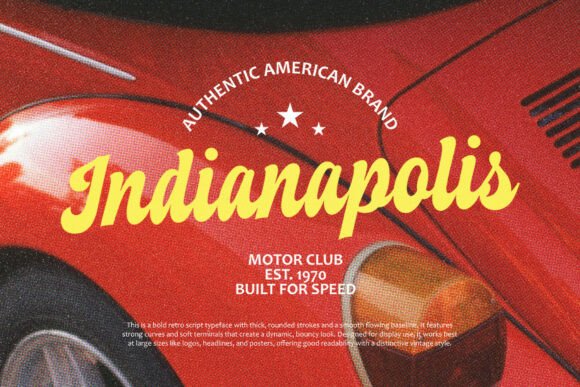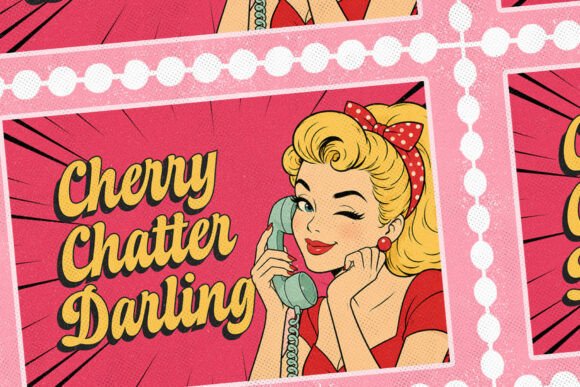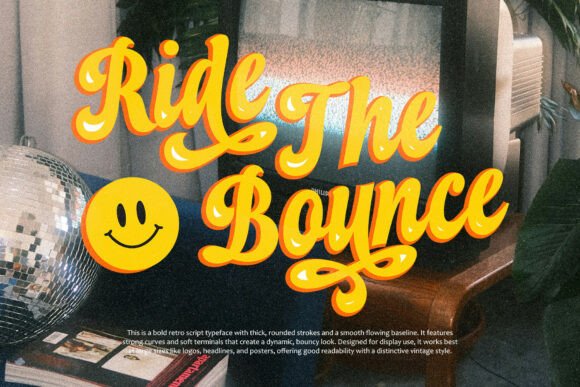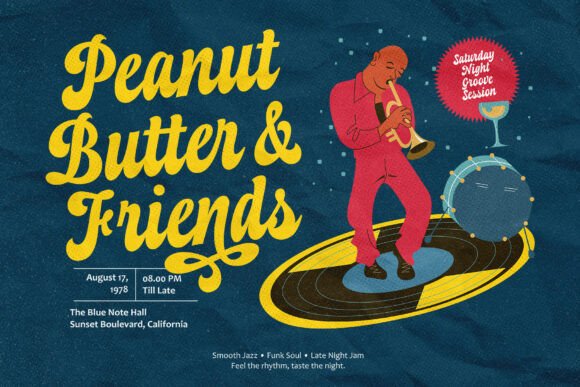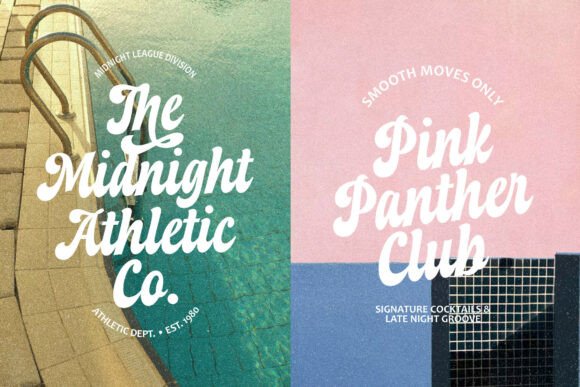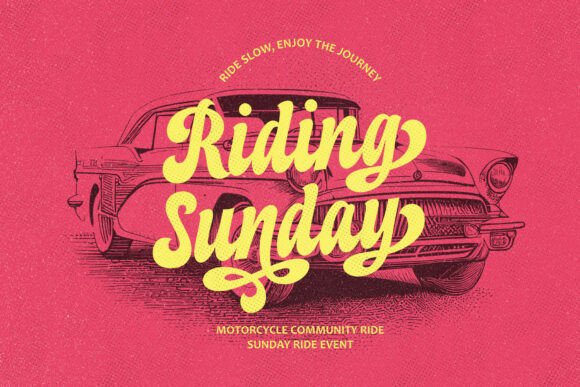
Duckin Font: The Ultimate Retro-Style Script for Bold Designs
Are you looking for a font that can add a touch of nostalgia and playfulness to your designs? Look no further than Duckin Font, a retro-style script font that’s perfect for creating bold and eye-catching designs. With its unique blend of classic vintage aesthetics and a fun, groovy touch, Duckin Font is ideal for designers and crafters who want to add some personality to their work.
What is Duckin Font?
Duckin Font is a script font that features bold characters, dynamic flow, and playful letterforms. Its smooth curves, flowing baseline, and bouncy rhythm make it perfect for designs that require a strong personality and visual impact. Whether you’re creating logos, posters, product packaging, branding, merchandise, headlines, or social media content, Duckin Font is the perfect choice.
Key Features of Duckin Font
- Retro-style script font: Duckin Font combines classic vintage aesthetics with a fun, groovy touch, making it perfect for designs that aim to stand out.
- Bold characters: The font features bold characters that are perfect for creating eye-catching designs.
- Dynamic flow: The font’s dynamic flow and smooth curves make it perfect for creating designs that require a sense of movement and energy.
- Playful letterforms: The font’s playful letterforms add a touch of whimsy and fun to any design.
- Highly readable: Despite its bold and playful style, Duckin Font remains highly readable, making it perfect for both digital and print designs.
Uses of Duckin Font
Duckin Font is a versatile font that can be used for a wide range of design projects, including:
- Logos: The font’s bold and playful style makes it perfect for creating logos that require a strong personality.
- Posters: Duckin Font is ideal for creating eye-catching posters that require a bold and attention-grabbing headline.
- Product packaging: The font’s retro-style aesthetic makes it perfect for product packaging that requires a vintage or nostalgic feel.
- Branding: Duckin Font can be used to create a consistent brand identity that requires a bold and playful style.
- Merchandise: The font’s fun and playful style makes it perfect for creating merchandise such as t-shirts, mugs, and tote bags.
- Headlines: Duckin Font is ideal for creating bold and attention-grabbing headlines for articles, blog posts, and social media content.
- Social media content: The font’s playful style makes it perfect for creating engaging and eye-catching social media content.
Why Choose Duckin Font?
There are many reasons why you should choose Duckin Font for your design projects. Here are a few:
- Unique style: Duckin Font has a unique and distinctive style that’s perfect for designers who want to stand out from the crowd.
- High-quality design: The font is designed to high-quality standards, ensuring that it’s clear and readable even at small sizes.
- Versatile: The font can be used for a wide range of design projects, from logos and posters to product packaging and social media content.
| Font Name | Duckin Font |
| Author | Fourlines.design |
Duckin Font is a retro-style script font that’s perfect for designers and crafters who want to add a touch of nostalgia and playfulness to their designs. With its bold characters, dynamic flow, and playful letterforms, Duckin Font is ideal for creating designs that require a strong personality and visual impact. Whether you’re creating logos, posters, product packaging, branding, merchandise, headlines, or social media content, Duckin Font is the perfect choice.